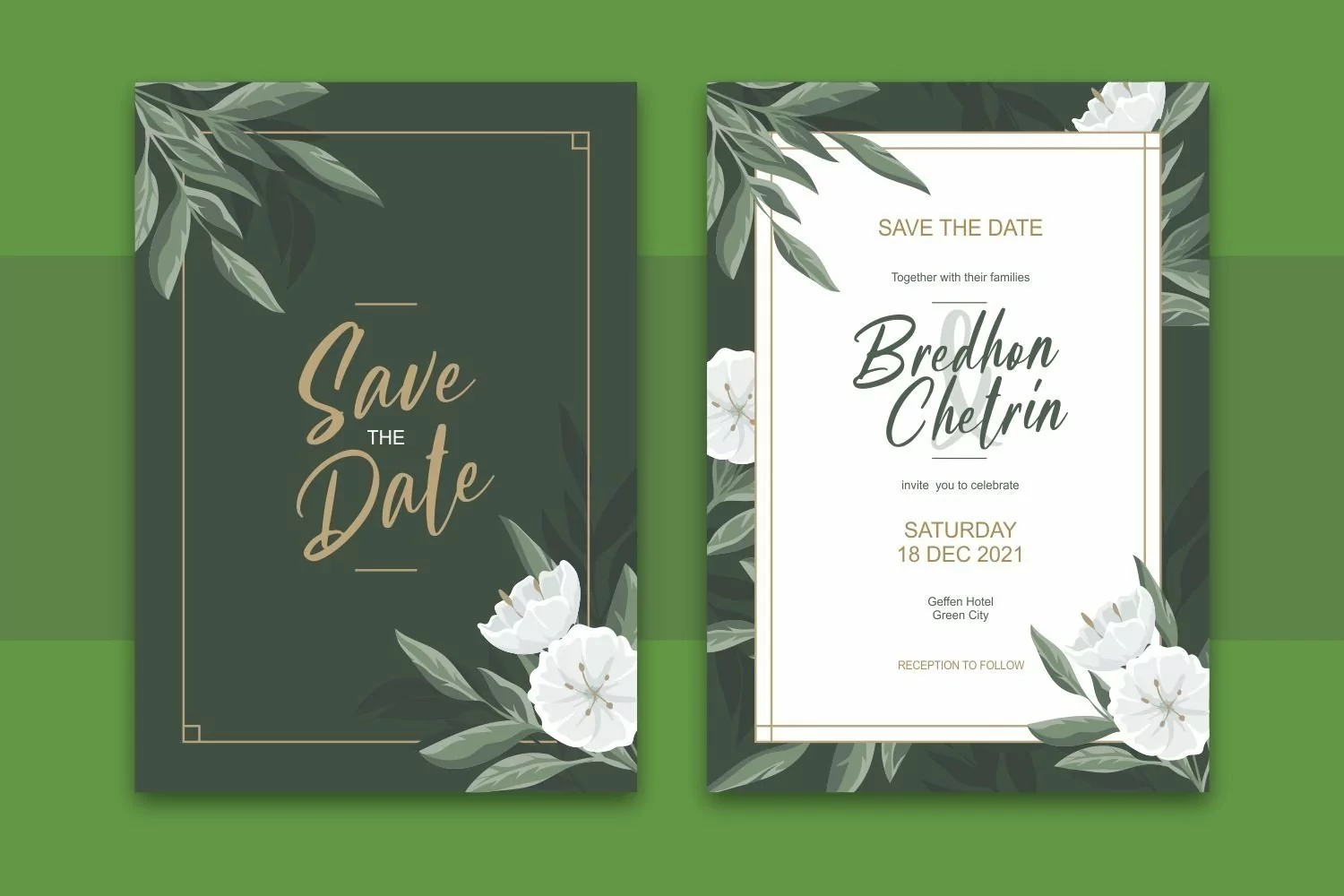
Shafromes is a handwritten come with casual themes. This font create with hand-drawn brush to make natural flow and good shape. It matches applies in some designs such as the logotype, brand, packaging, quotes, poster, shirt, book, wedding invitation and more custom design. The features uppercase, lowercase, numeral, punctuation & symbol, multilingual support, PUA encoded (fully accessible without additional design software).